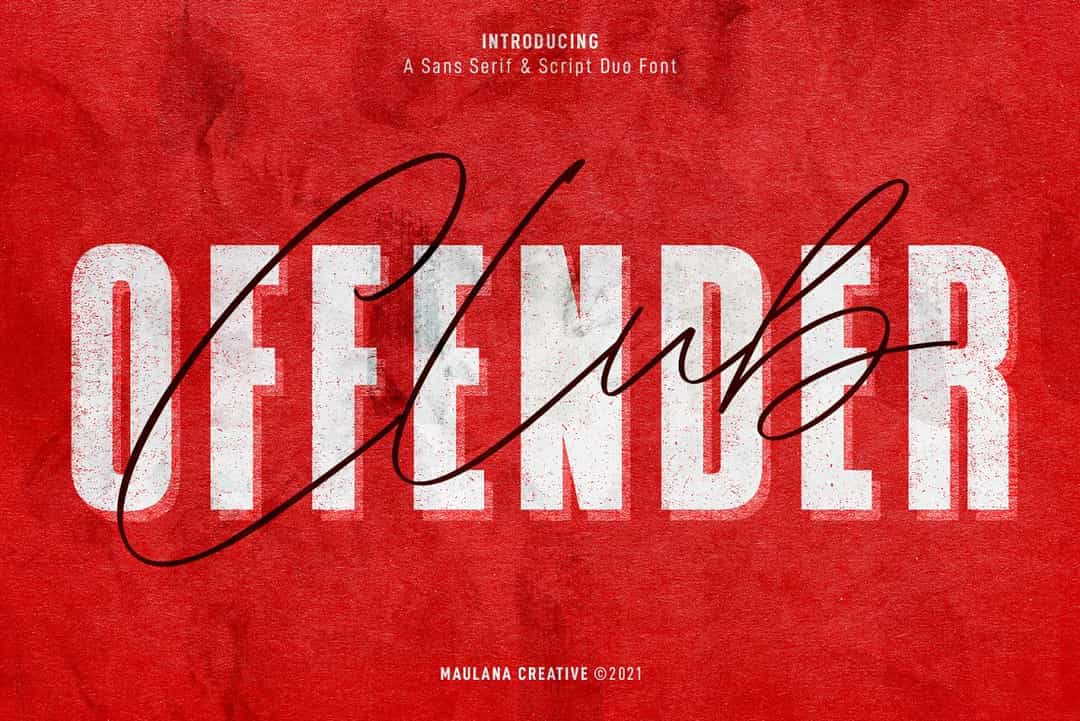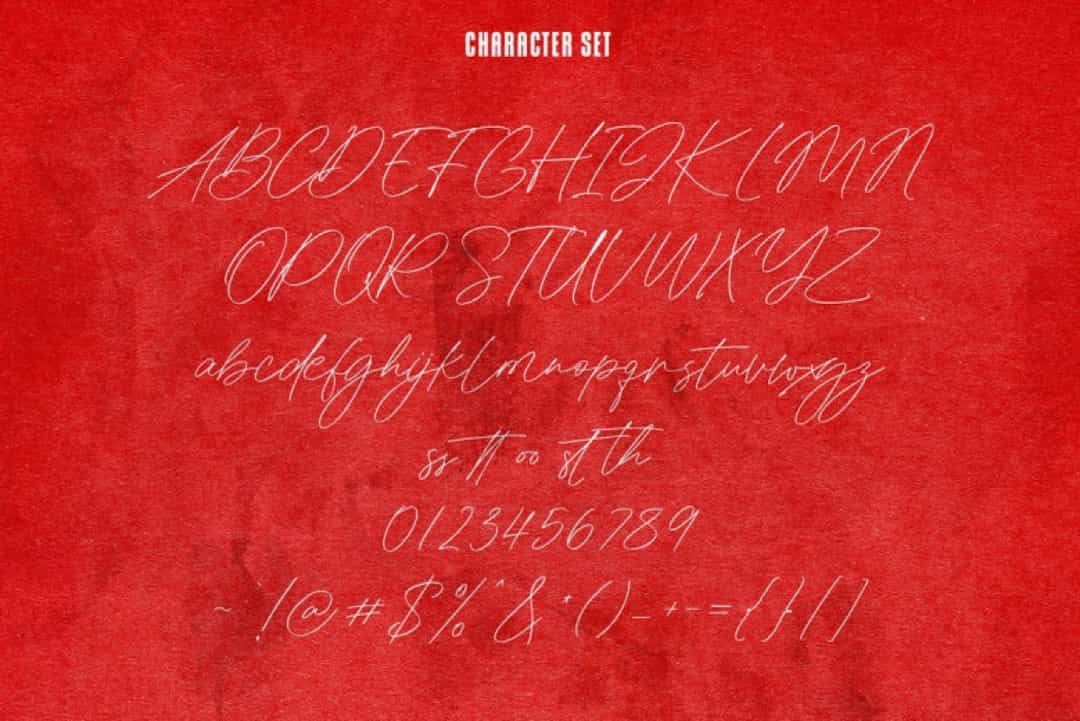
Offenders is an original script sans serif typeface with thin felt tip strokes condensed into enjoyable characters that feature several ligatures for additional imaginative work. Offenders Club font supports multilingual support spanning over 100languages.